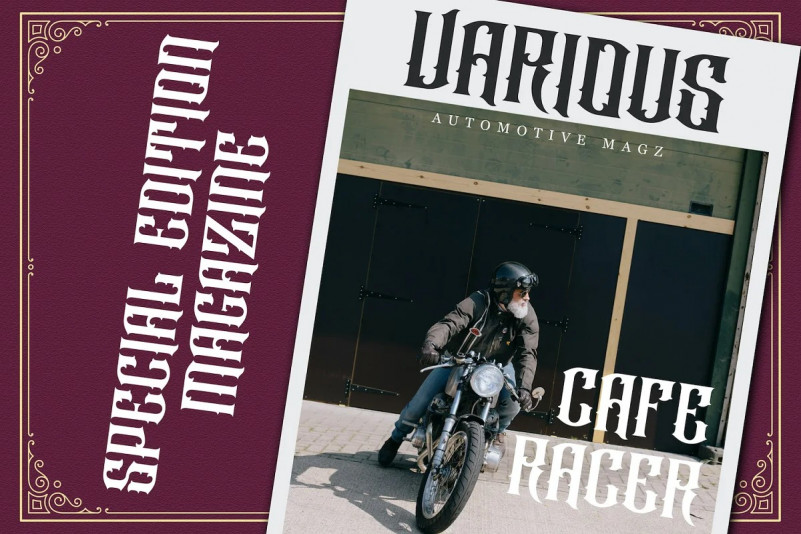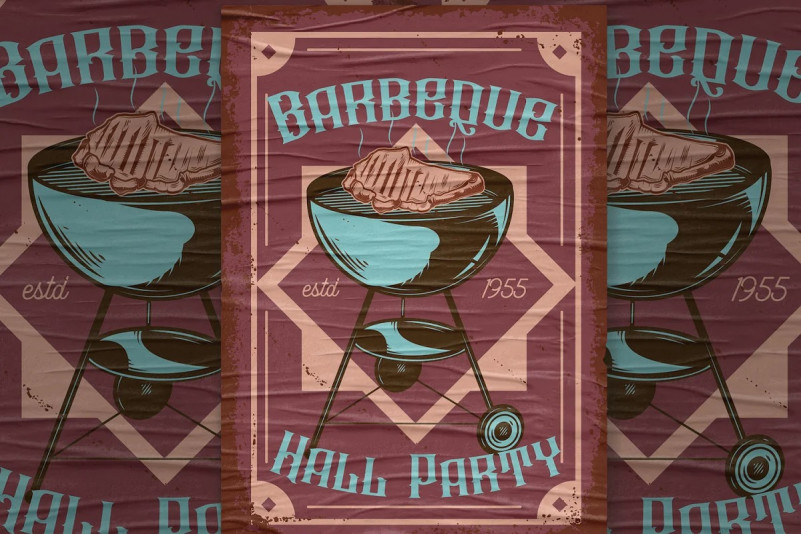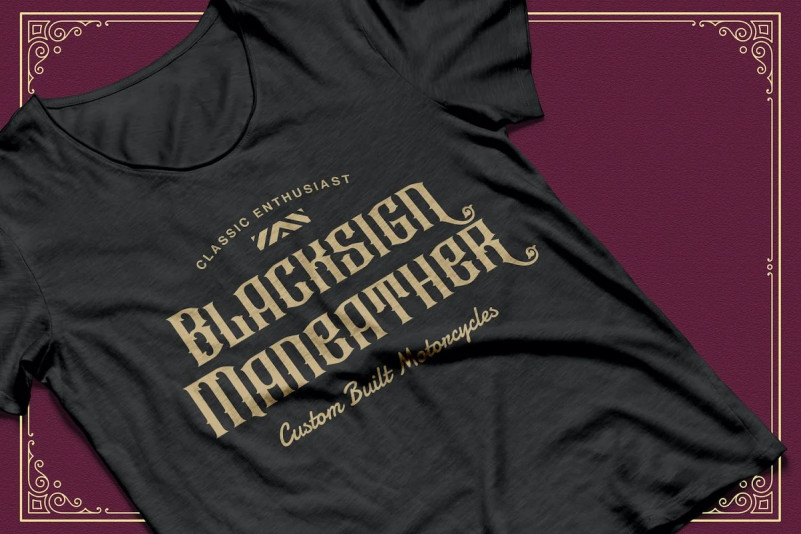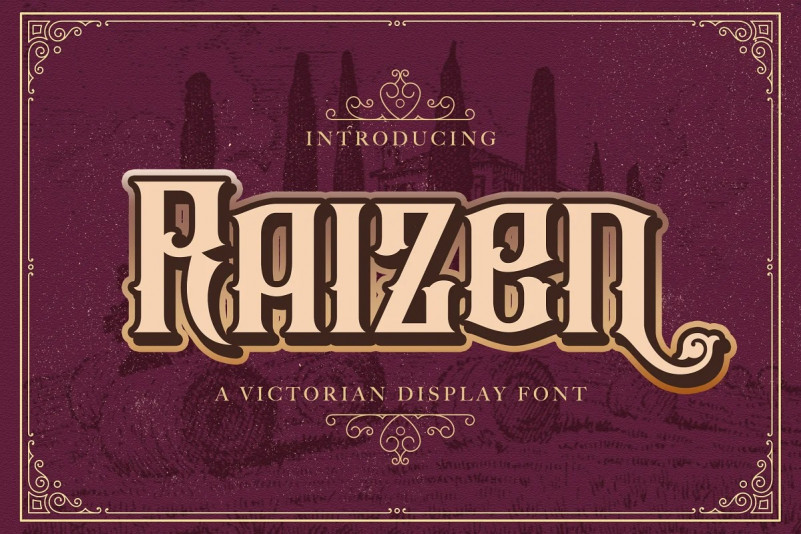
Raizen Display Font
This is a powerful, luxurious Typeface, adopting the fluid curvaceous elements of Romanesque typography and combining them with the Gothic style of Blackletter. Raizen feels playfully nostalgic and delivers an incredible vintage aesthetic. Inspired by vintage tattoo design, Raizen is an absolutely stunning and eye-catching typeface. This typeface will look truly outstanding in a wide range of modern and classic designs, with its romantic and bold formation, as well as its attention to detail.